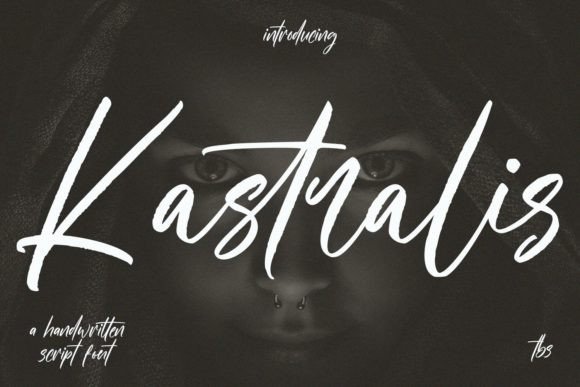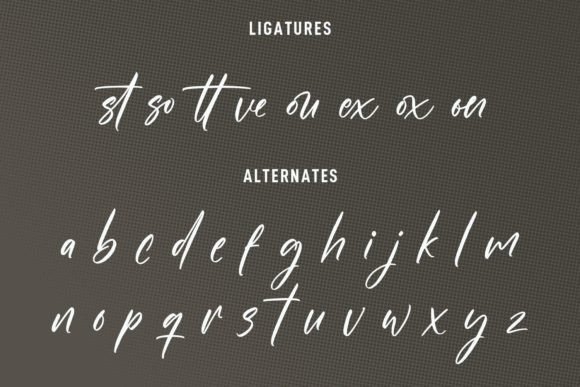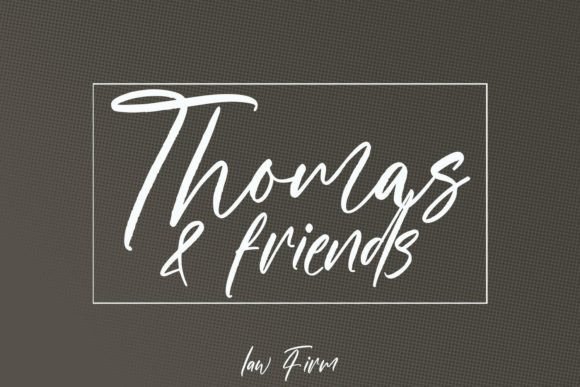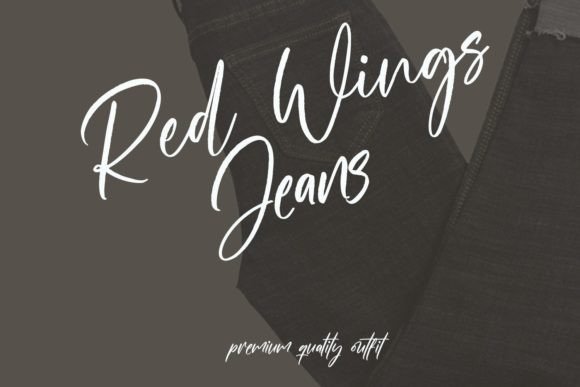
About Kastralis Font
“Kastralis” is a sophisticated and contemporary script font that effortlessly combines elegance with modernity. Its fancy and stylish design makes it a standout choice for a wide array of creative projects. Regardless of the topic or theme, “Kastralis” serves as a valuable asset to your font library, as it possesses the ability to enhance and elevate any creation it is applied to.
The font’s sleek and flowing letterforms exude a sense of sophistication and refinement, making it ideal for various design applications. Whether used for branding, packaging, invitations, advertising, or any other creative endeavor, “Kastralis” adds a touch of class and elegance to the visual presentation. Its versatility allows it to adapt seamlessly to different contexts, ensuring that it enhances the overall aesthetic of your projects.
“Kastralis” stands out as a font that effortlessly bridges the gap between traditional elegance and contemporary style. Its fancy yet modern script design gives your text a sense of glamour and class, making it perfect for projects that require a high-end and polished look. By incorporating “Kastralis” into your designs, you can elevate them to a new level, making them visually striking and captivating.
One of the standout features of “Kastralis” is its potential to enhance any creation it is applied to. Its sophisticated and modern style makes it a versatile choice, allowing it to complement a wide range of design themes and concepts. Whether used for luxury branding, editorial layouts, product packaging, or upscale events, “Kastralis” adds a level of sophistication that leaves a lasting impression on your audience.
Embrace the fancy and modern allure of “Kastralis” and witness how it transforms your creative projects. Its elegance and versatility make it a valuable tool for designers looking to create visually stunning and refined designs. With “Kastralis,” you can confidently craft sophisticated and upscale creations that capture attention and leave a memorable impact, showcasing your design expertise and attention to detail.